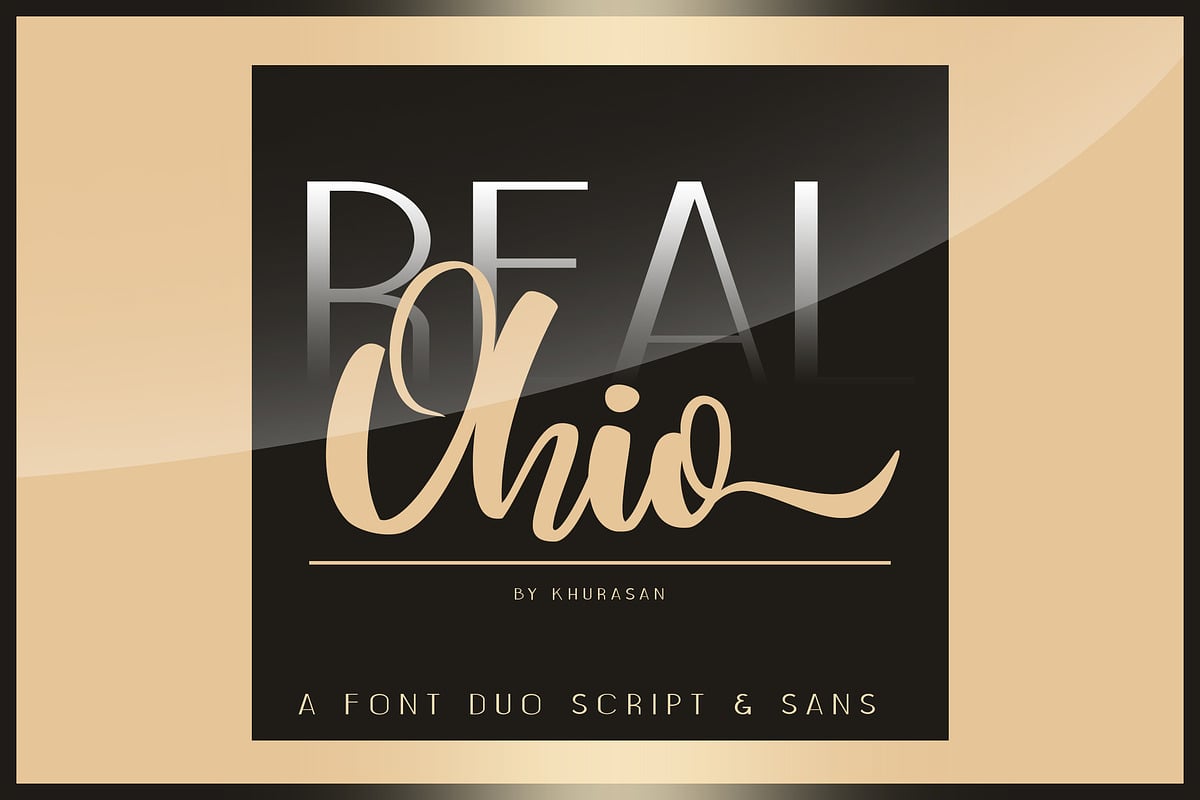
Real Ohio Font Duo
Create stunning designs with this versatile modern script and sans serif font duo perfect for logos, branding, and creative projects. The Real Ohio Font combines a fun modern script style with a complementary sans serif typeface, delivering fresh and contemporary typography for your design needs. Mix and match the script and sans versions to achieve amazing visual results that stand out. This font duo works beautifully for logo design, branding projects, greeting cards, posters, and any creative...